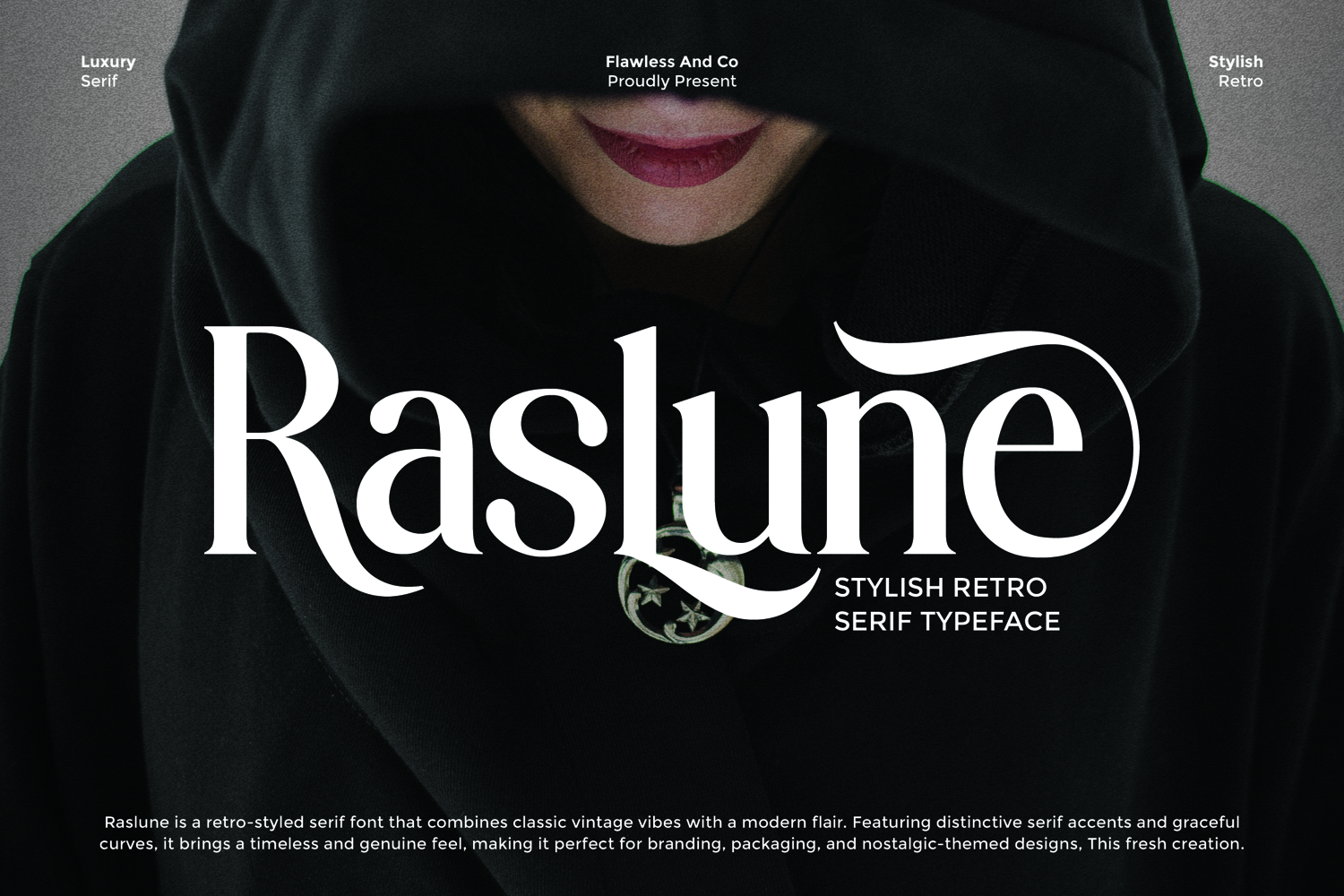
Raslune - Retro Serif Font
Raslune is a stylish retro serif font that beautifully blends classic vintage charm with a modern twist. With its distinctive serif details, graceful curves, and timeless elegance, Raslune brings a sophisticated yet nostalgic character to every design. Perfectly crafted to deliver both authenticity and style, this font is ideal for branding, packaging, editorial layouts, and creative projects that seek a balance of retro vibes and contemporary appeal.
- Alternates & Ligatures
- Numerals & Punctuation
Who Should Use Raslune?
Raslune is perfect for designers, creatives, and brands who want to showcase elegance with a touch of retro charm. It’s an excellent choice for:
- Branding specialists who want timeless yet stylish typography
- Packaging designers seeking fonts with unique vintage appeal
- Editorial and magazine creators who value sophisticated, eye-catching headlines
- Creative agencies looking to infuse character and authenticity into projects
- Fashion, beauty, and lifestyle brands aiming for a refined retro aesthetic
A Must-Have Font for "Brand and Logo" Creators and Designers
Raslune is more than just a typeface—it’s a design essential for creators who want to build memorable brand identities and timeless logos. With its refined retro details and elegant serif style, this font ensures every brand mark stands out with sophistication and authenticity.
Why Choose Raslune for "Brand and Logo" Projects?
Raslune offers the perfect balance of vintage charm and modern refinement, making it a versatile choice for branding. Its strong retro serif forms convey trust, elegance, and creativity, ensuring your brand stands out with personality. Whether you’re designing a premium logo, crafting editorial layouts, or developing stylish packaging, Raslune provides a timeless look that resonates with audiences and elevates your brand identity.
Suitable For
- Brand identities and stylish logo design
- Editorial layouts and magazine headlines
- Packaging design for premium or vintage products
- Wedding invitations and elegant stationery
- Posters, flyers, and retro-themed graphics
- Social media content and lifestyle branding